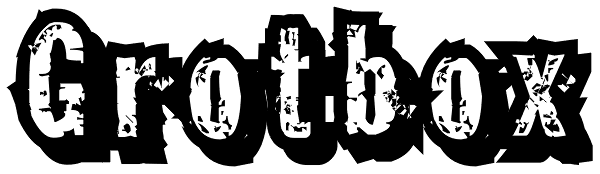
Grotbox
Grotbox is an interesting, if not startling, distressed punk font. There are two varieties: one with upright characters; the other with the characters rotated out of whack for extra informality. Legibility is maintained, despite the wild industrial...
Grotbox
Grotbox Jumbled